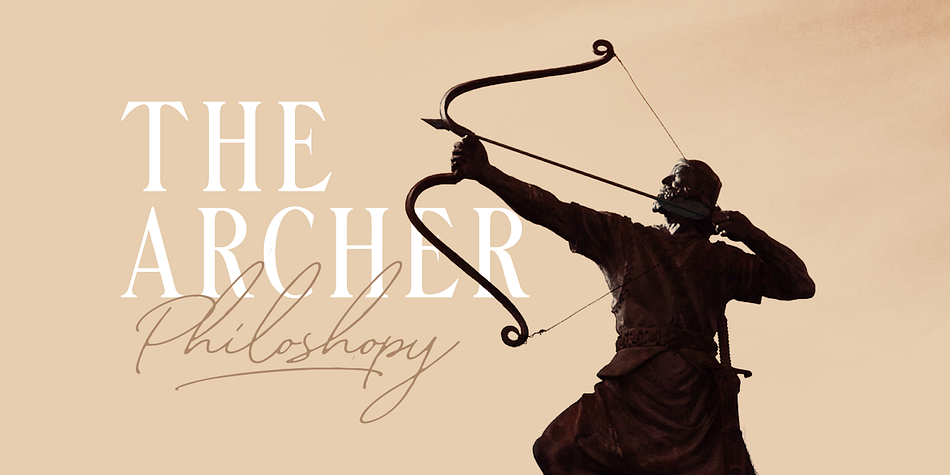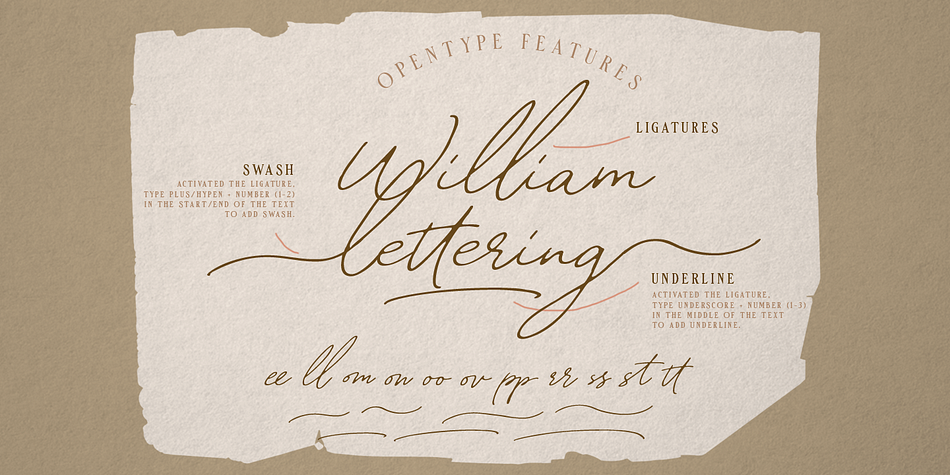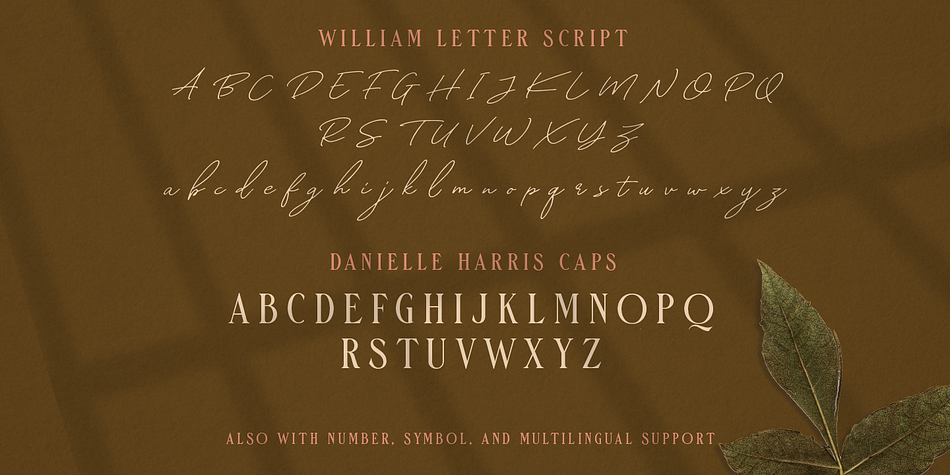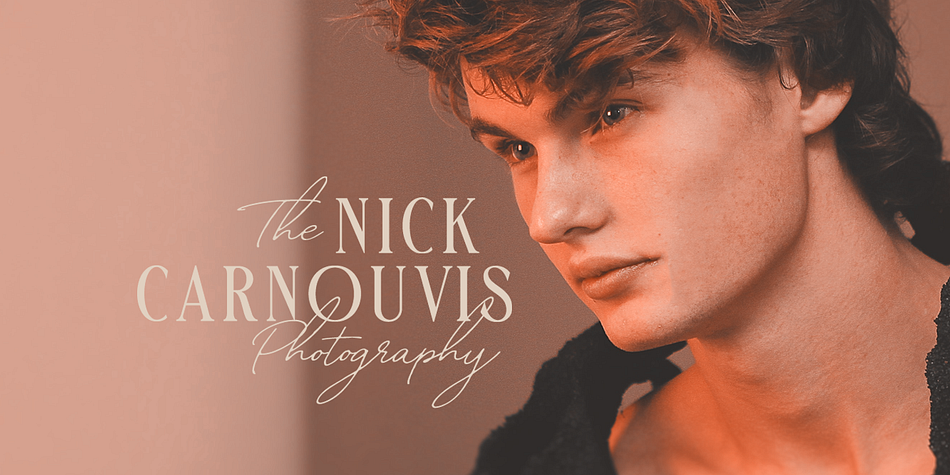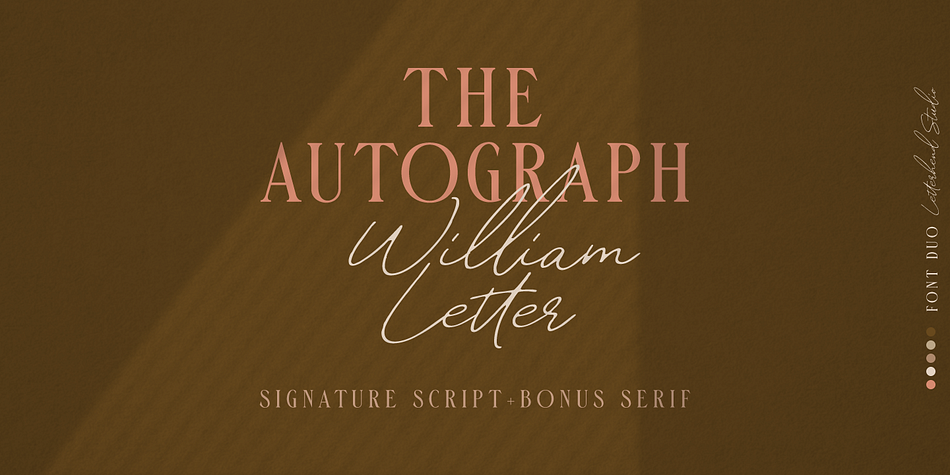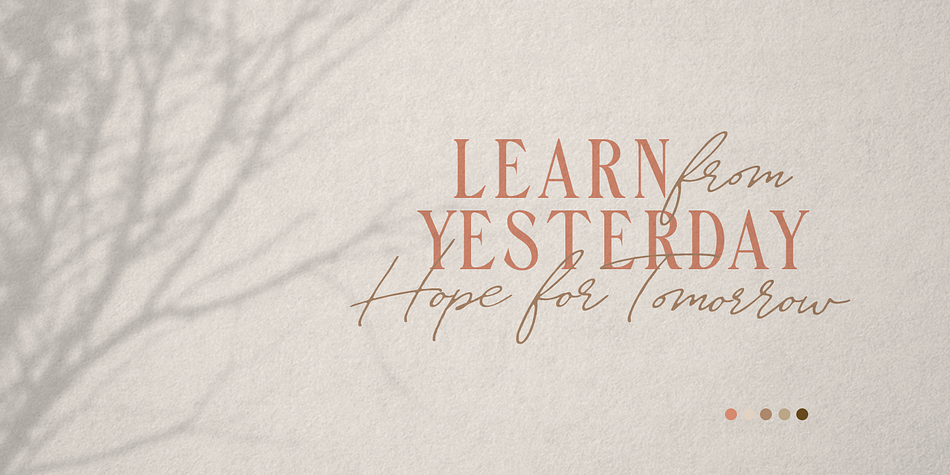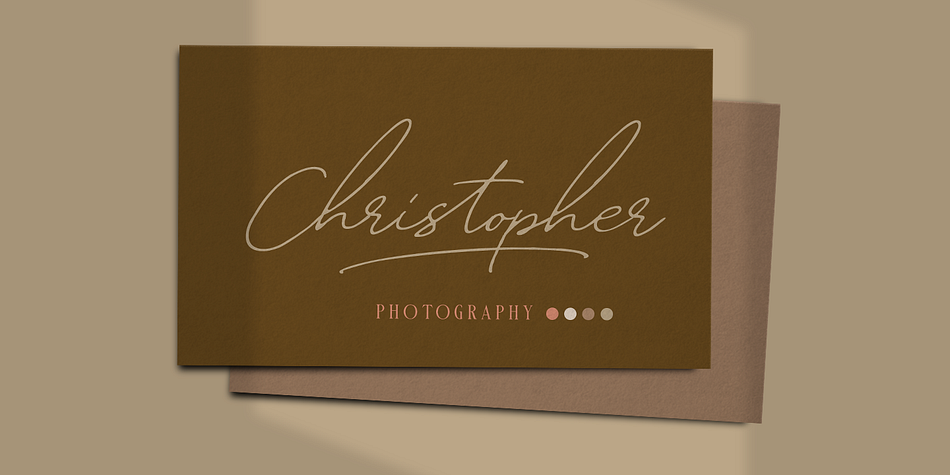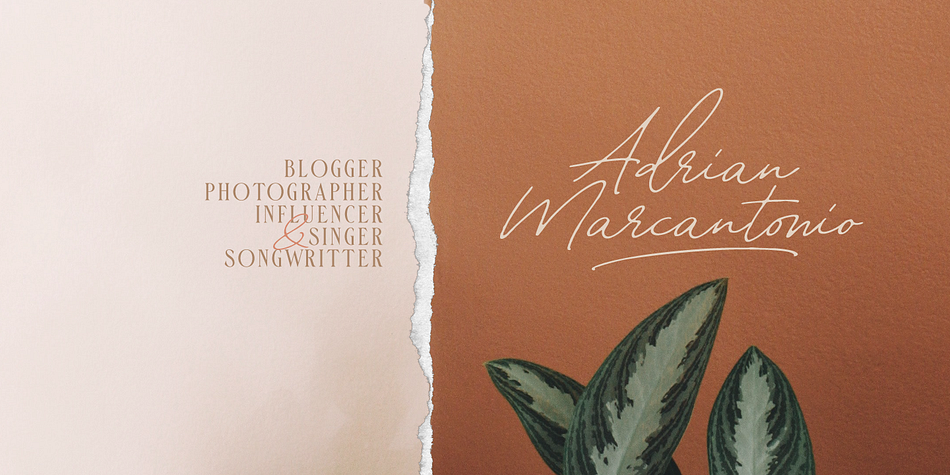
Designed by Hendry Juanda, William Letter is a script font published by Letterhend Studio.
Introducing, William Letter Signature Script. A perfect font duo combination consist of a signature and a serif font. This typeface has elegant and clean looks which works perfect for you who needs a typeface for headline, logotype, apparel, invitation, branding, packaging, advertising etc.
uppercase & lowercase
numbers and punctuation
multilingual
ligatures
alternates
swashes
underline